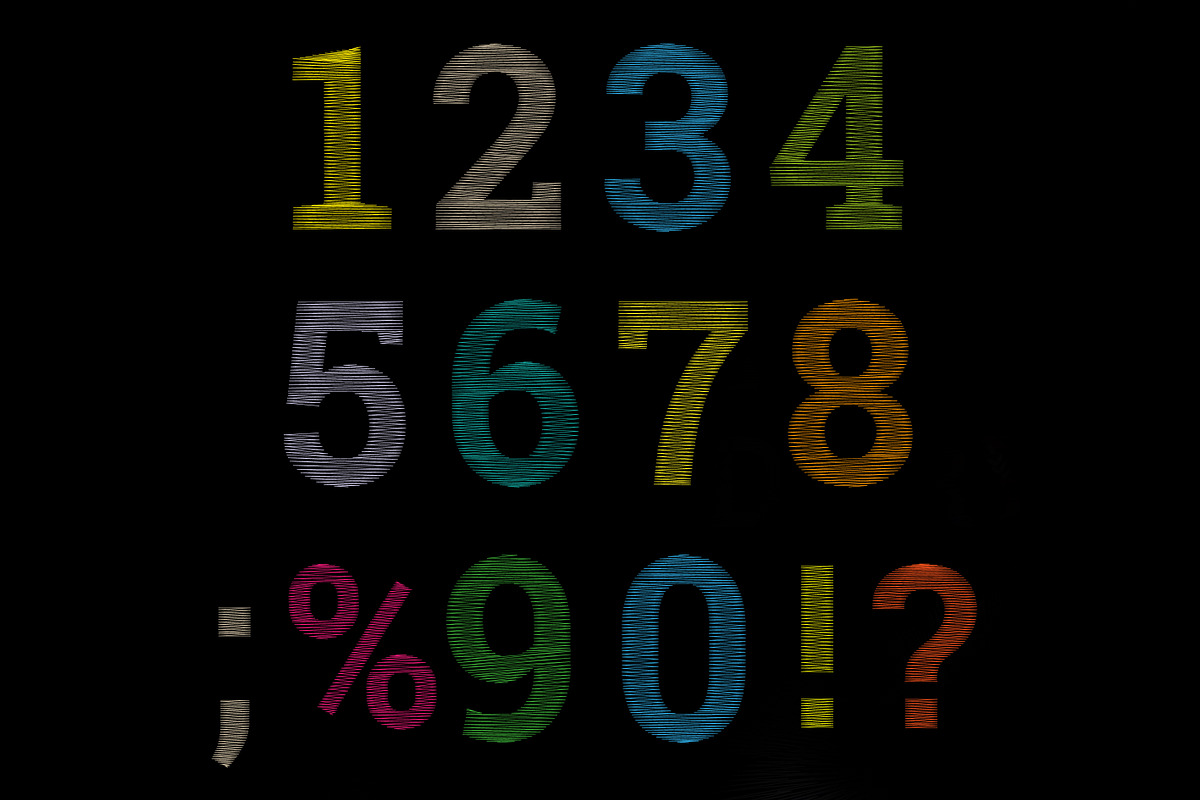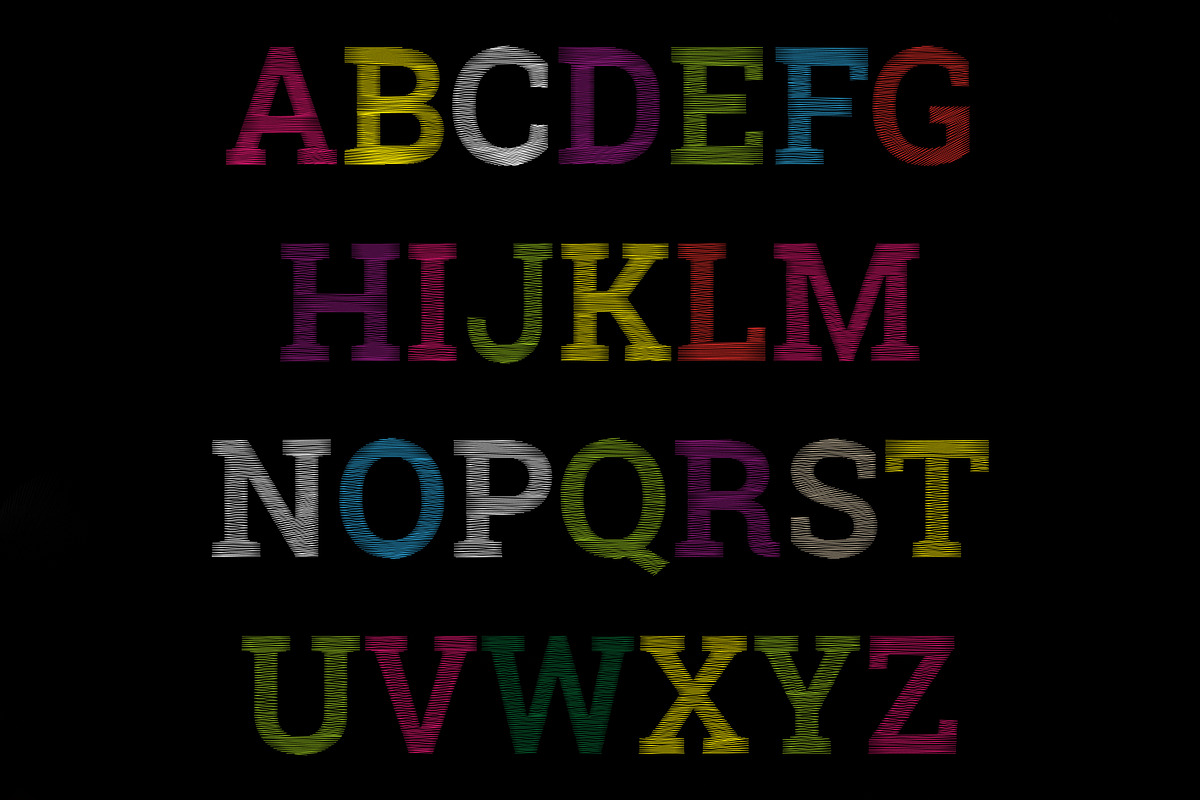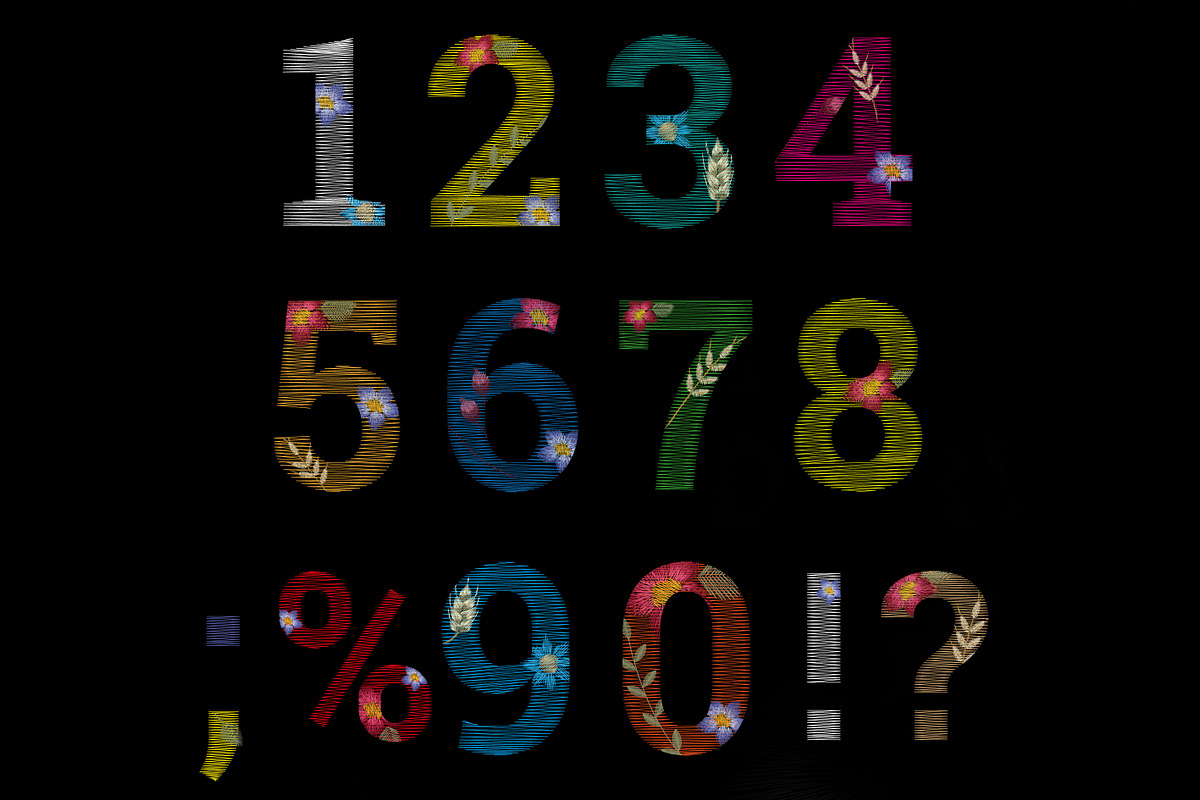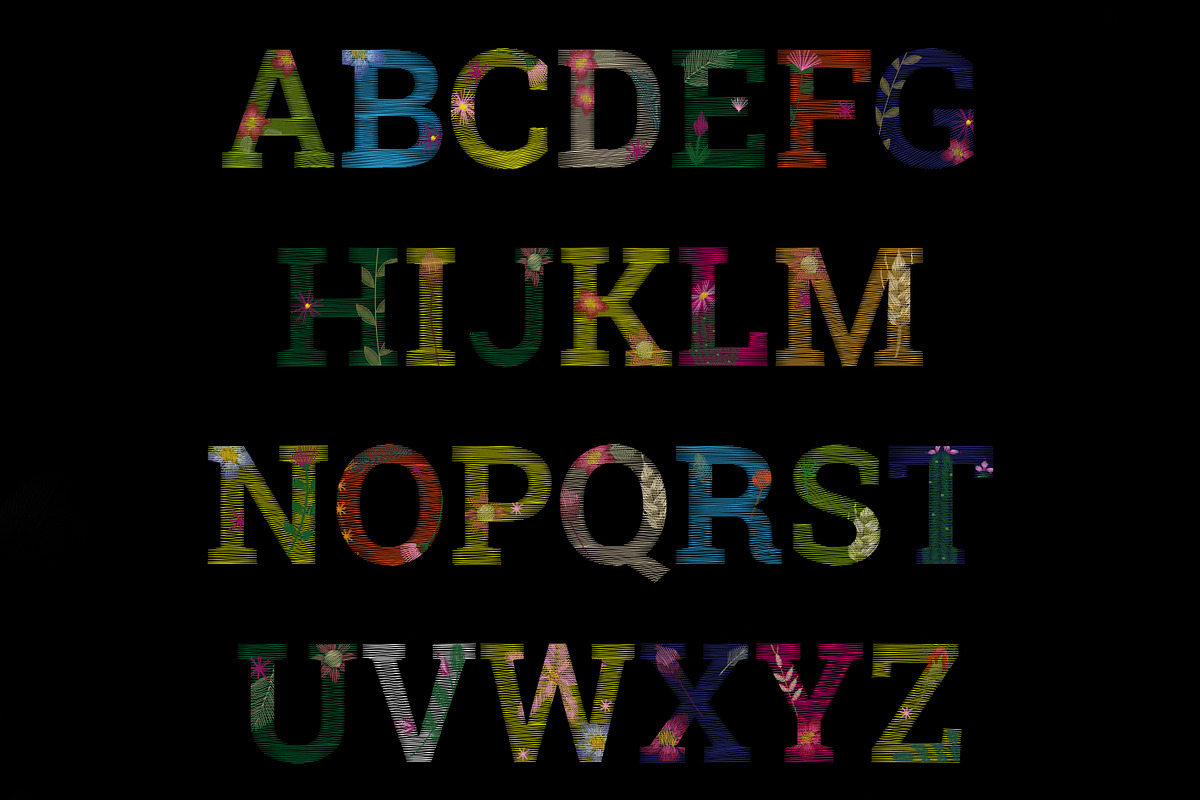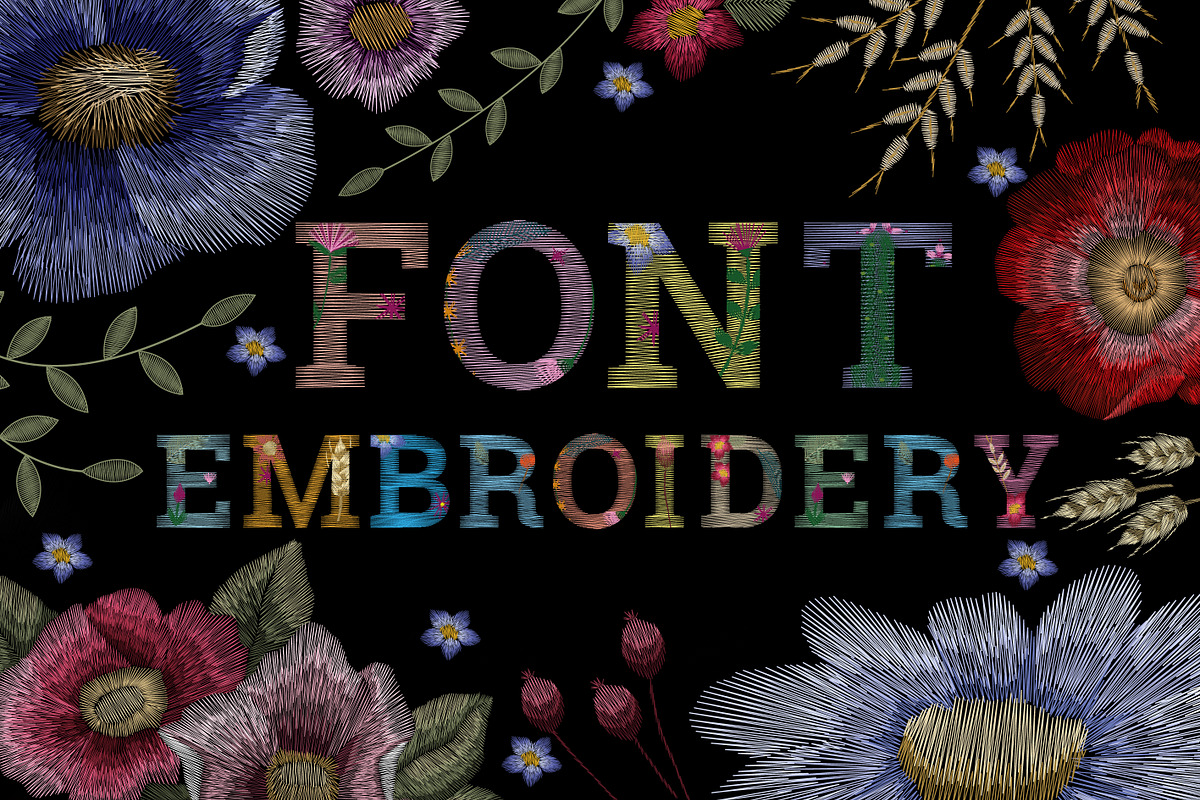
Font flower embroidery
Why Font flower embroidery is worth a look
Font flower embroidery by Chikovnaya fits naturally into Branding, posters, packaging, typography.